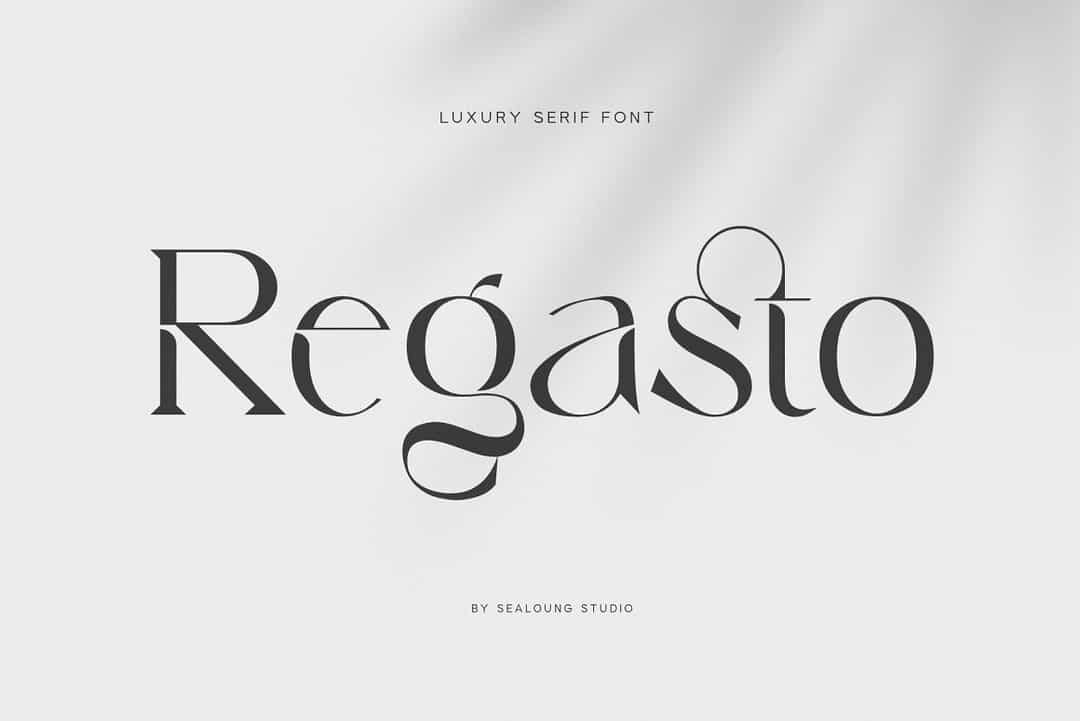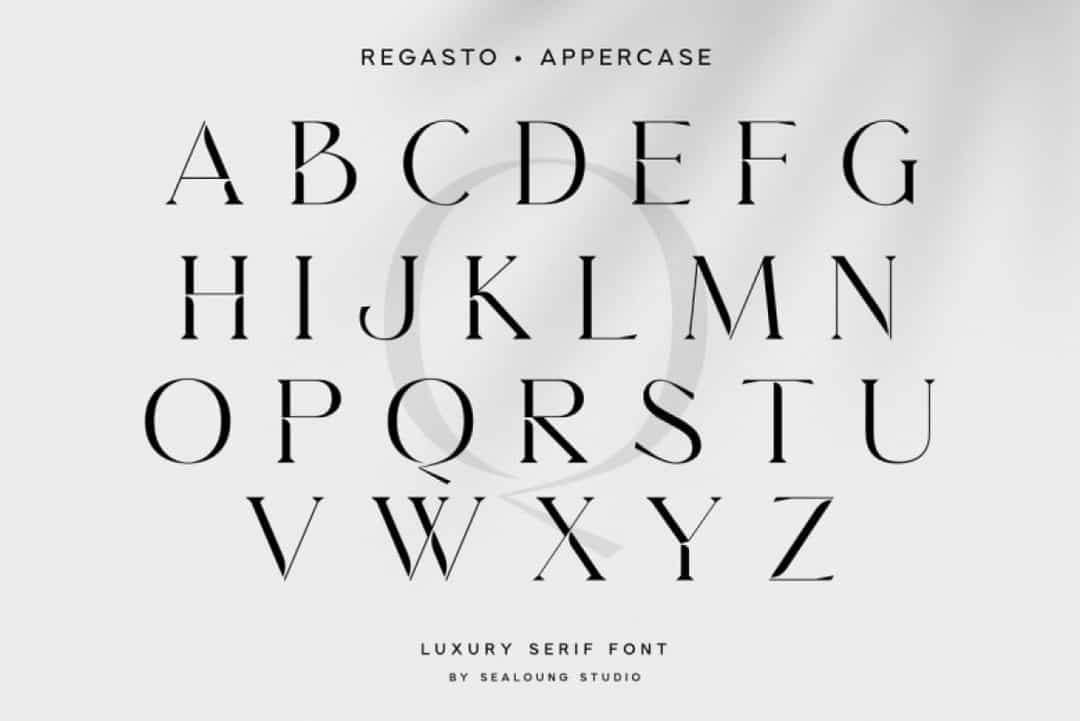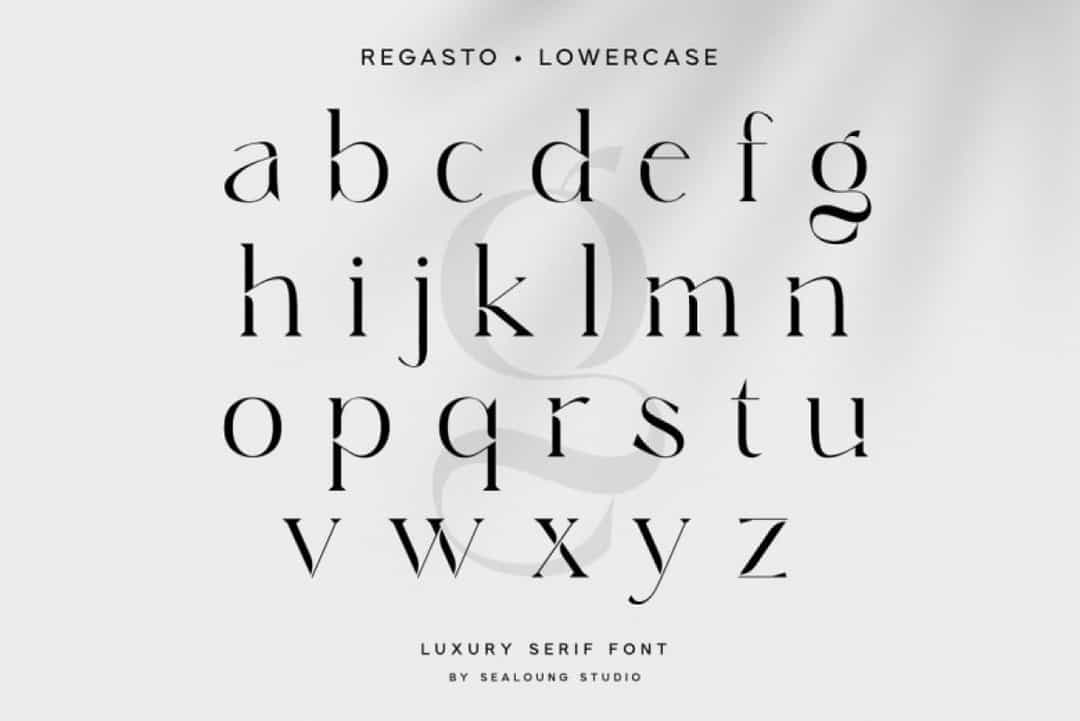
Regasto is an essias serif font that exudes elegance, luxury and contemporary style. One of the most sophisticated and beautiful fonts that is both strong and beautiful. Regasto was designed to give contemporary designs an elegant aesthetic with upper/lowercase characters, punctuation marks, numerals and punctuation markings; plus alternative characters which allow text to flow smoothly while maintaining individual character appearance.